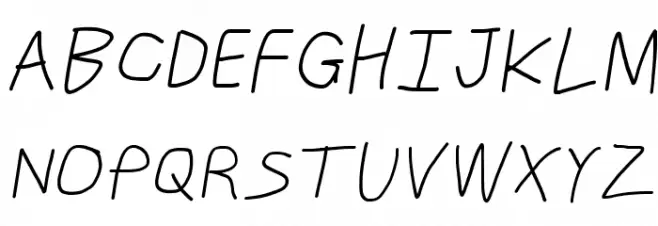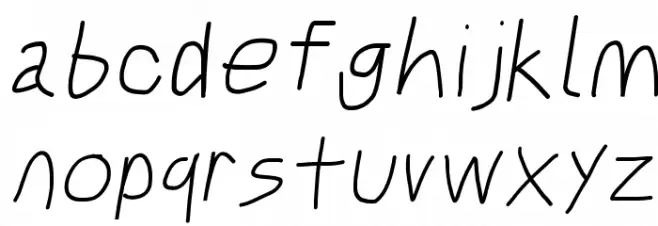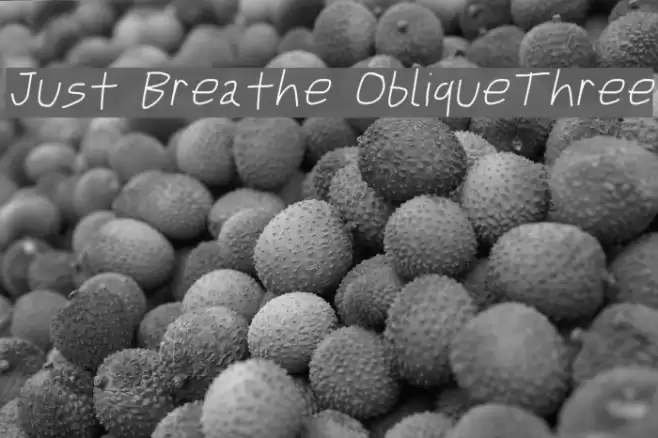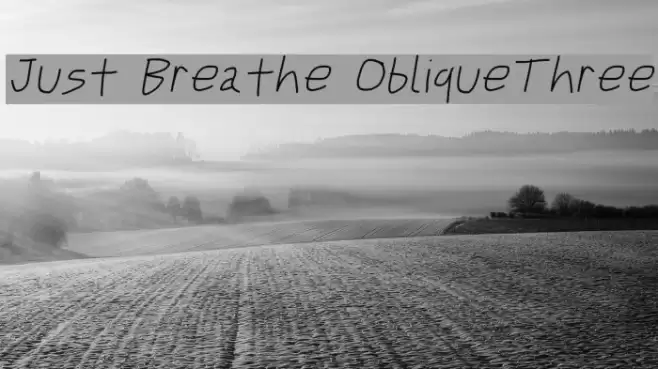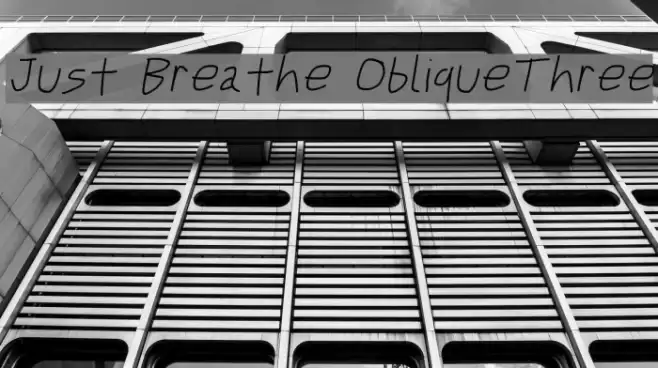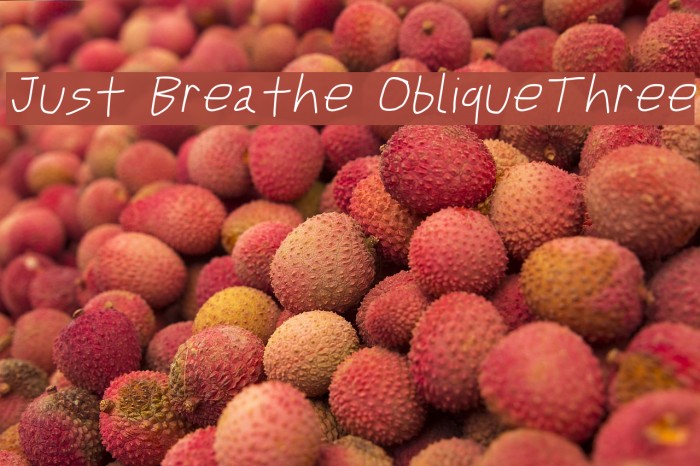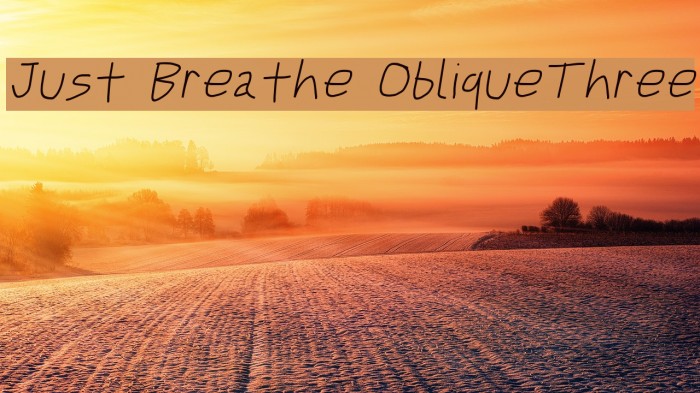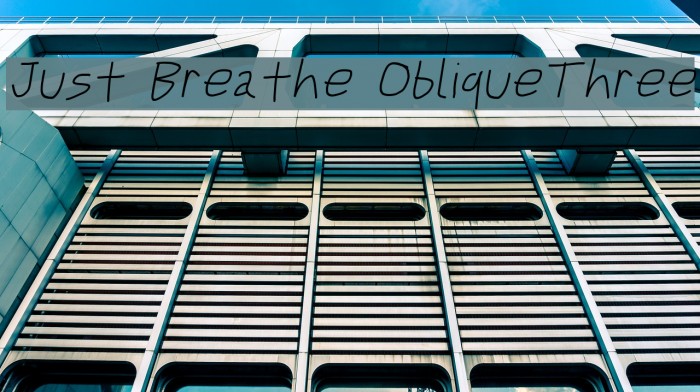
Just Breathe ObliqueThree
This font features a casual, handwritten style with a slight slant, giving it an informal and approachable appearance. The characters are crafted with smooth, flowing lines that mimic natural handwriting, making it ideal for projects that require a personal touch. The uppercase and lowercase letters maintain a consistent style, with rounded edges and a playful demeanor. Numbers and special characters are designed to match the overall aesthetic, ensuring a cohesive look across all text elements. The font's simplicity and charm make it versatile for various creative applications.
A casual, handwritten font with a slight slant and smooth, flowing lines.
- Proposed Projects: Ideal for personal notes, greeting cards, invitations, and casual branding projects.
- Overall Style: Casual
- Use Case: Headlines, Informal text, Personal projects